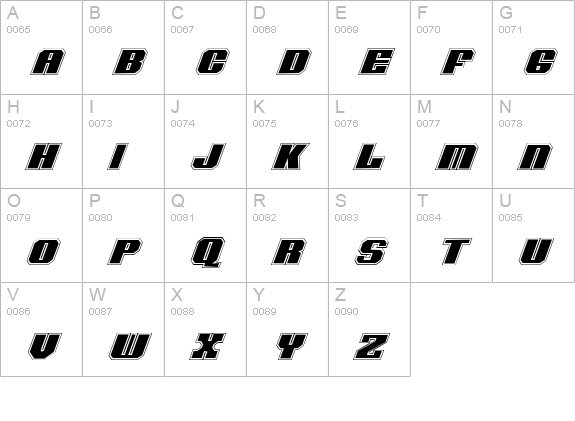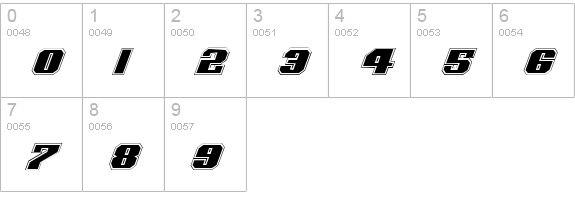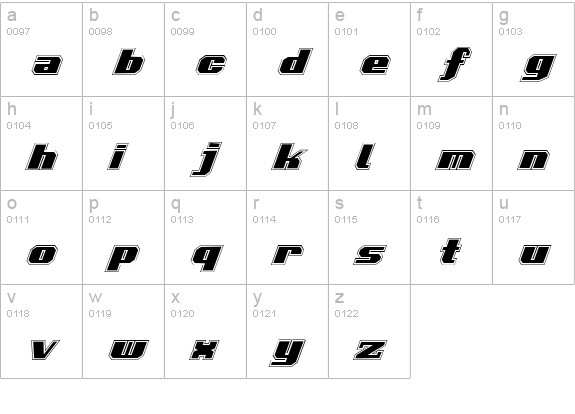
Voortrekker Pro Italic Font Details
Voortrekker Pro Italic is a distinctive, italic variant in the Voortrekker typeface family \xE2\x80\x94 well suited to design and typography projects.
Voortrekker Pro Italic font is a sleek and sophisticated typeface that exudes elegance and modernity. Its italic design adds a touch of flair and style to any project, making it perfect for both digital and print applications. The clean lines and sharp angles of Voortrekker Pro Italic lend a contemporary edge to any text, while maintaining readability and professionalism. What sets Voortrekker Pro Italic apart is that it is available for free download at FontsMarket.com. This means that you can easily access this high-quality font without any cost, making it a valuable addition to your font collection. Whether you're working on a design project, creating marketing materials, or simply looking to enhance your personal projects, Voortrekker Pro Italic is a versatile and stylish choice that won't break the bank. Download Voortrekker Pro Italic now from FontsMarket.com and elevate your designs with this exceptional typeface that combines modern aesthetics with practicality.